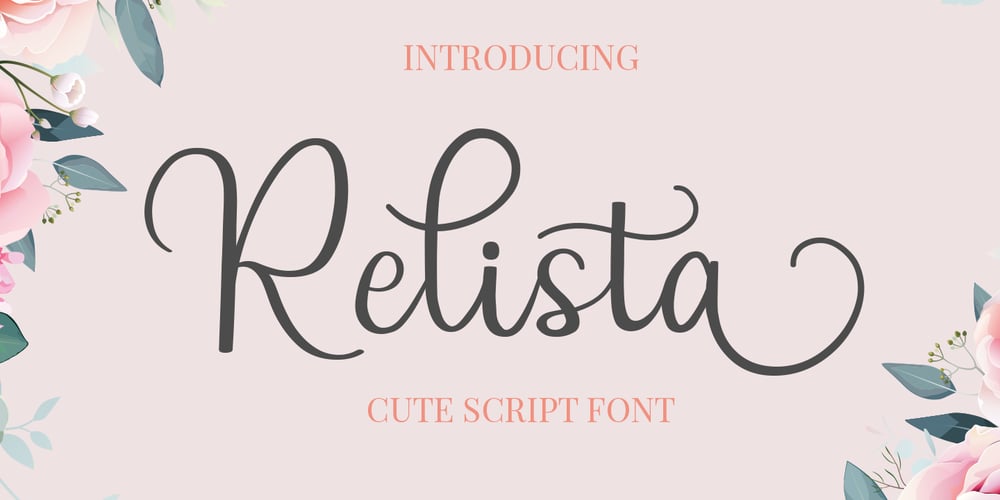
Relista
Relista font
Relista Font Family was designed by Jos Gandos and published by Jos Gandos. Relista contains 1 styles and family package options. Relista is a beautiful handwritten font carefully created with a touch of elegance. This font is suitable for any projects such wedding cards, watermarks, quotes, social media, posters, invitations, and more.This font is PUA encoded so it will be accessible in the Adobe Illustrator, Adobe Photoshop, Adobe InDesign, even work on Microsoft Word.